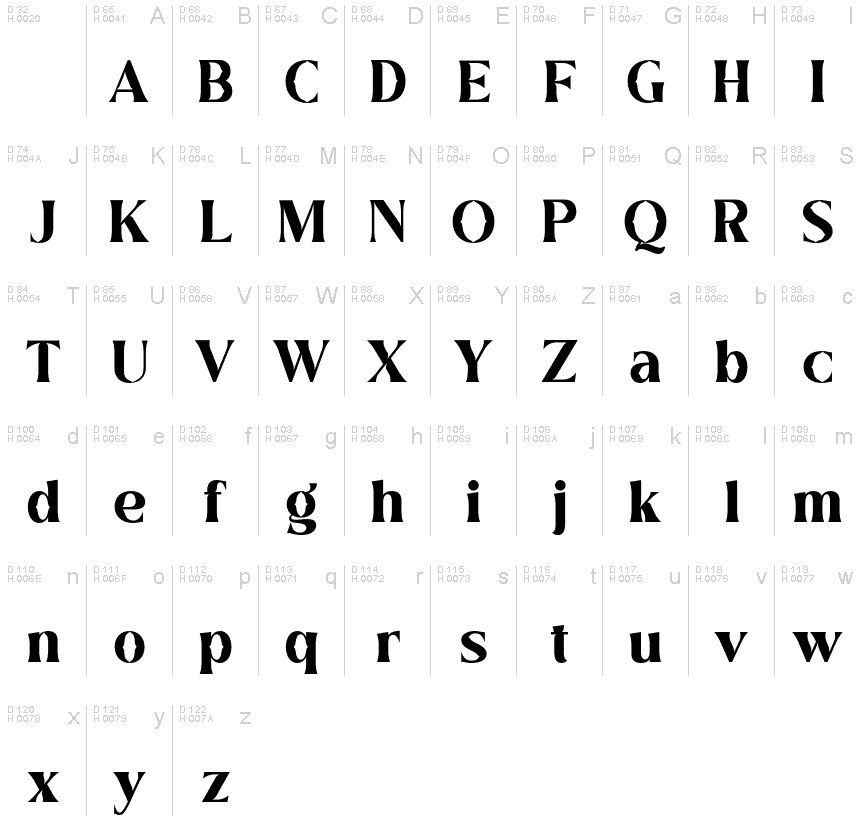
CARLOSEADemo-Regular
CARLOSEA is a bold display font designed by Meliora Studio. Its eroded serif style gives it a unique, distressed look that's perfect for vintage and retro-inspired projects. The bold weight of the font makes it excellent for headlines, posters, and other eye-catching design elements. CARLOSEA's eroded edges add texture and character to any project where it's used. Suitable projects include logos, book covers, album art, packaging design, and much more! Give your designs an edgy twist with CARLOSEA - the perfect font for those looking to stand out from the crowd.